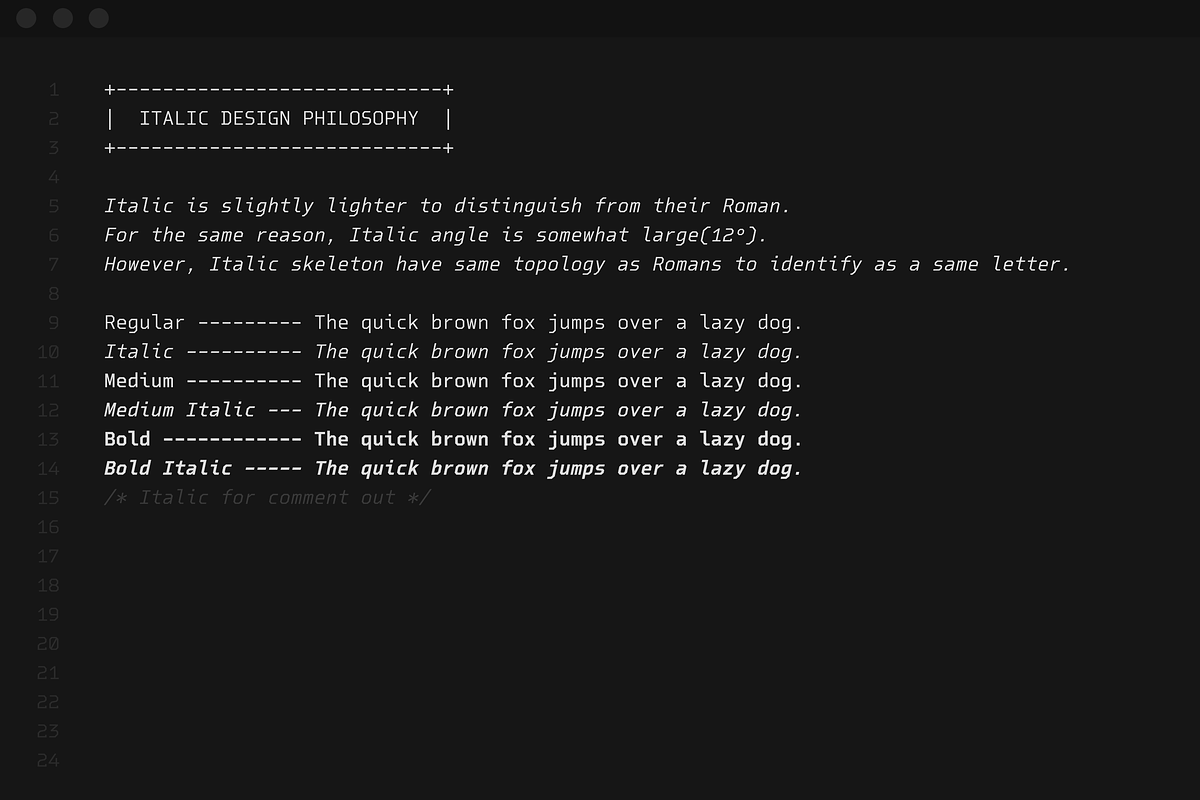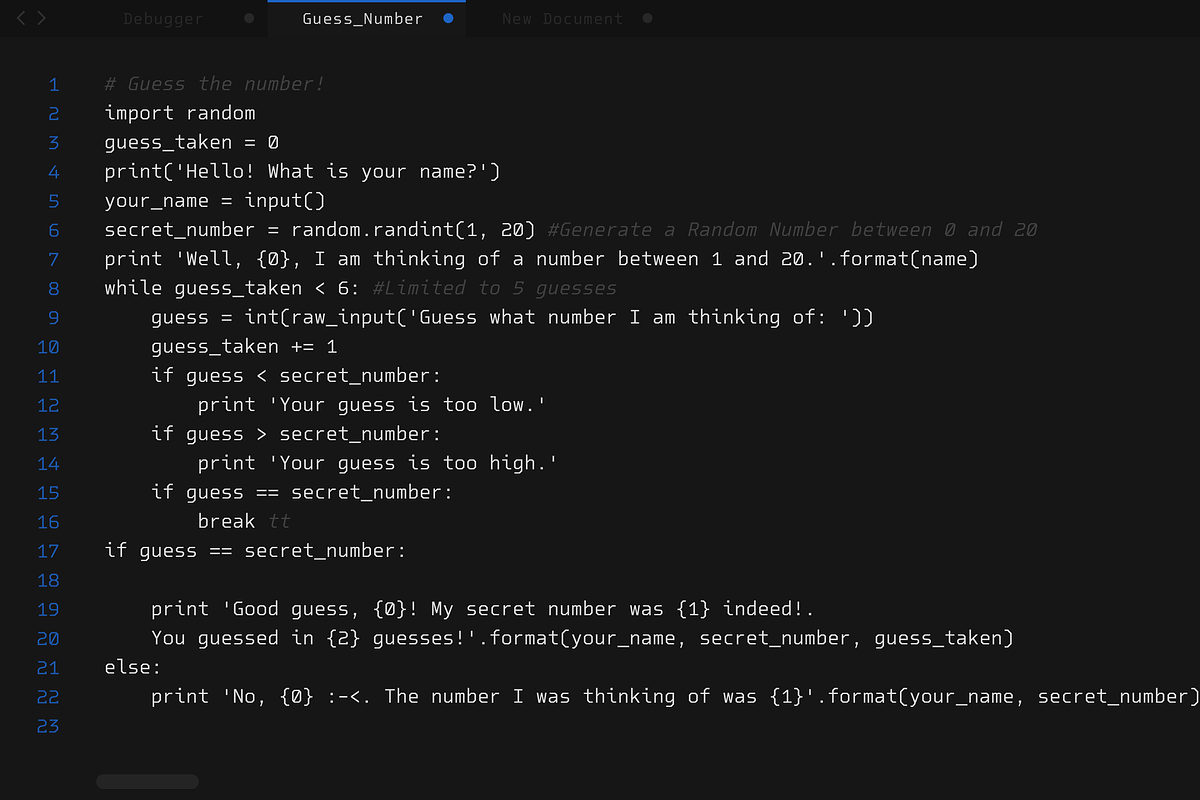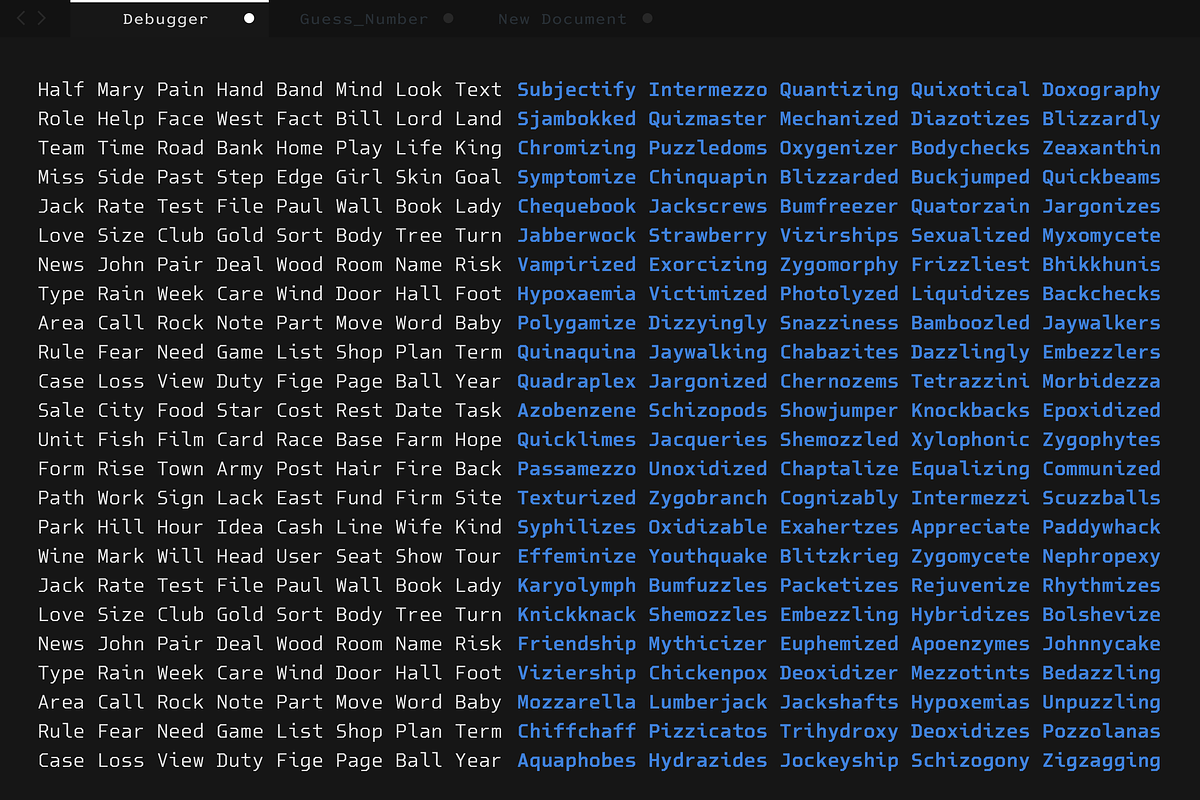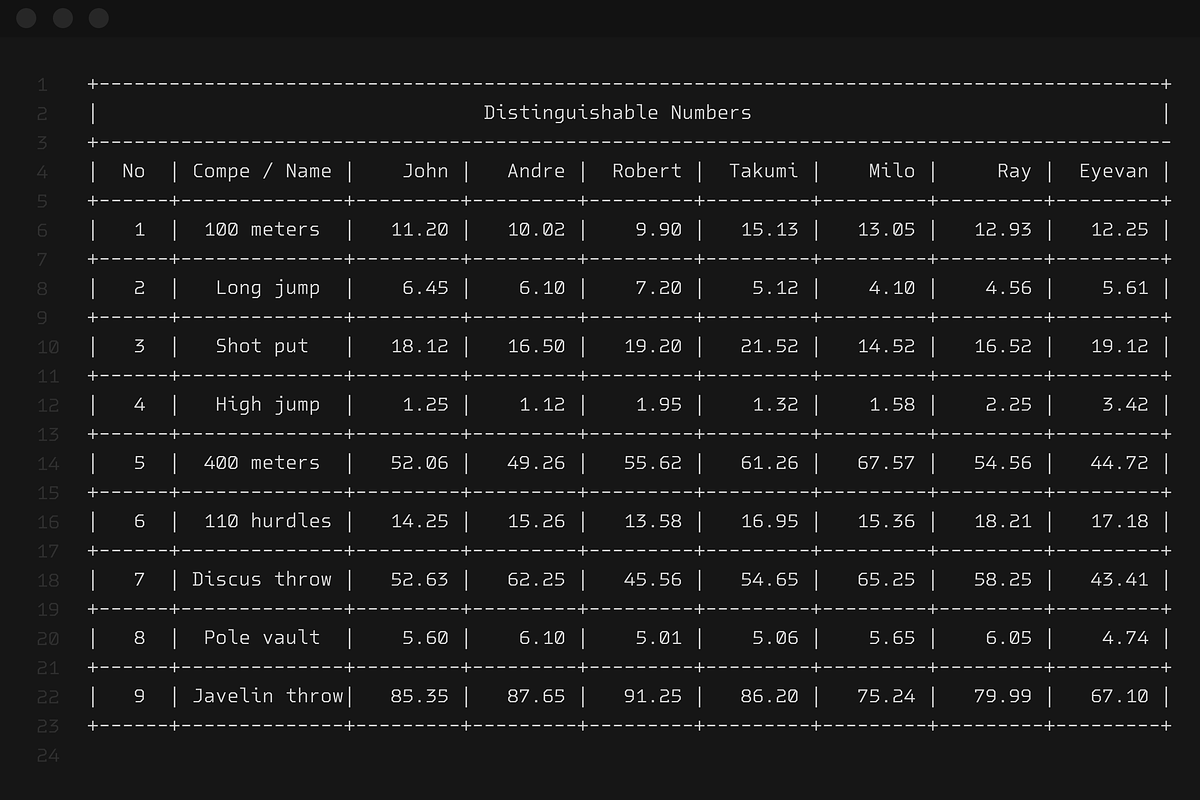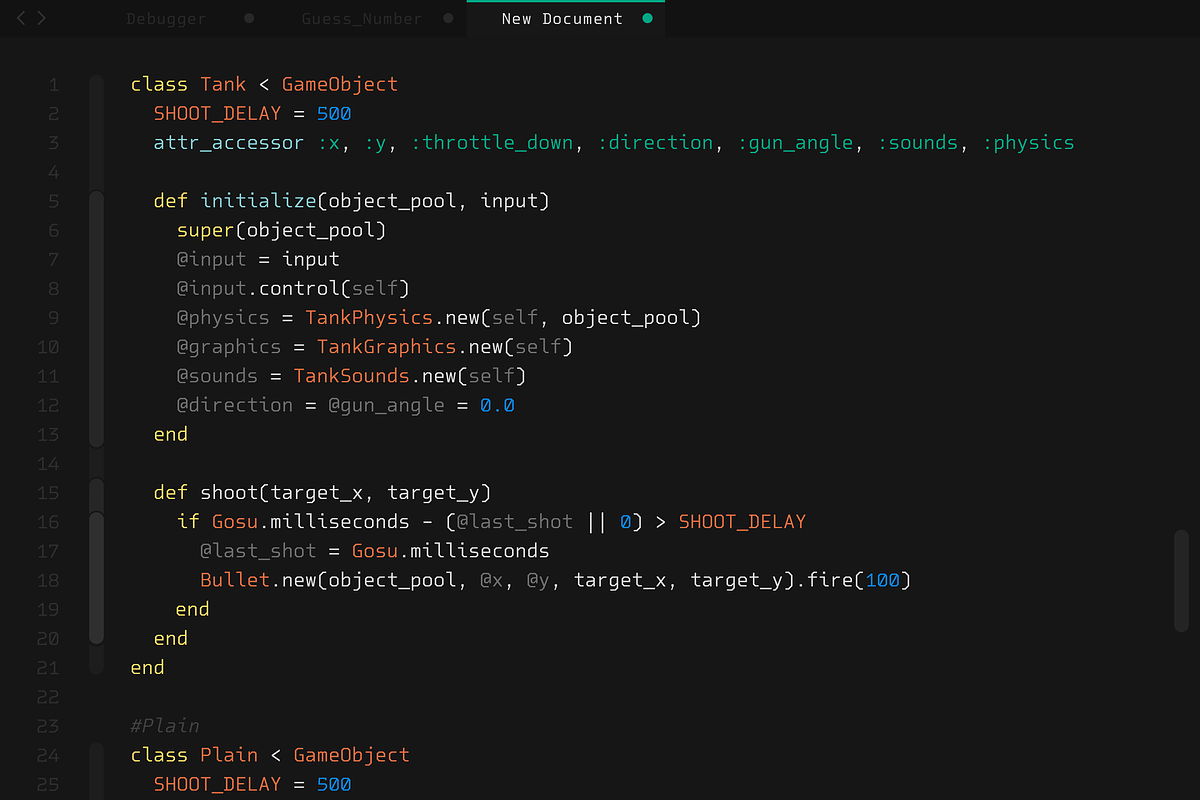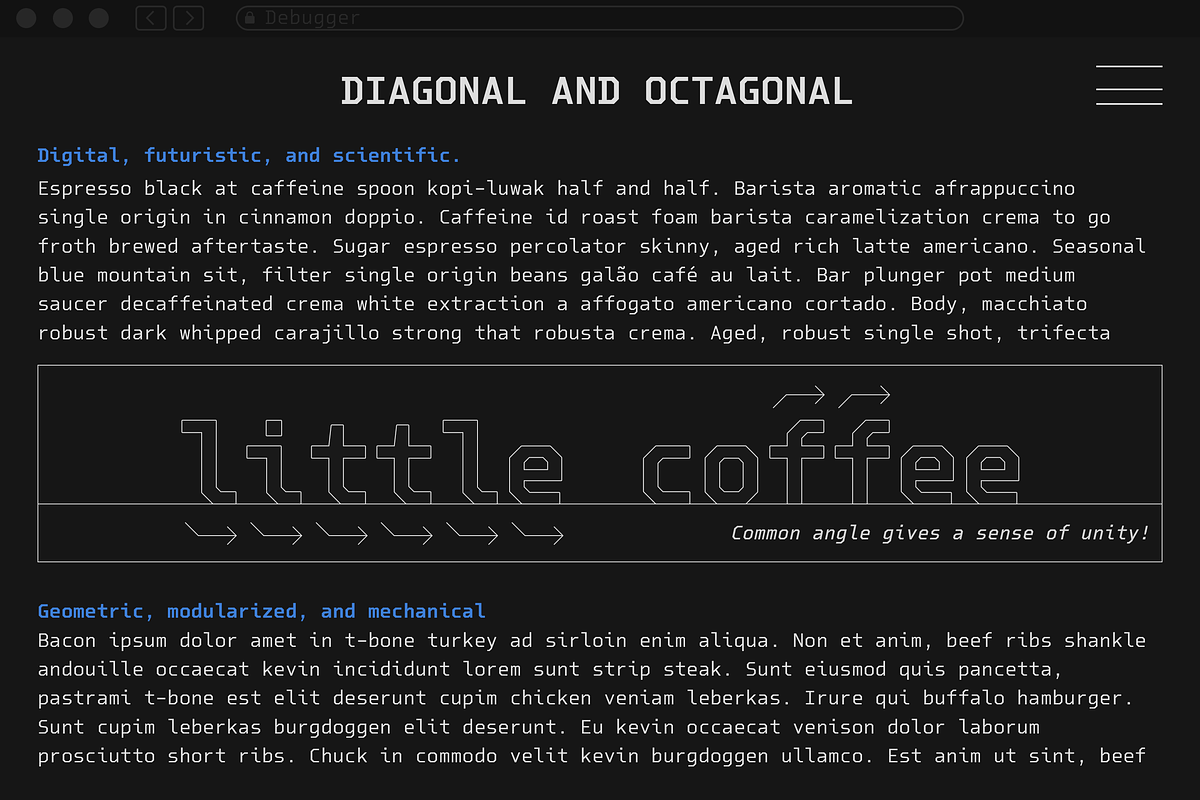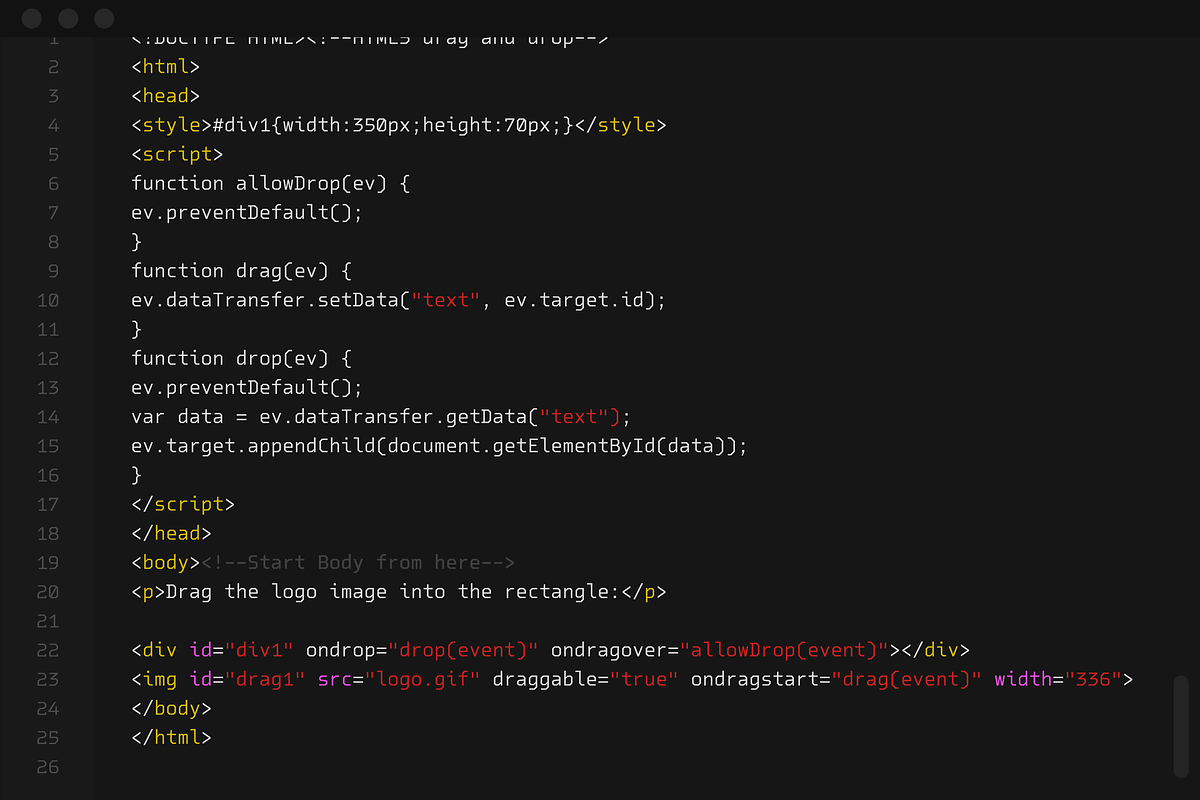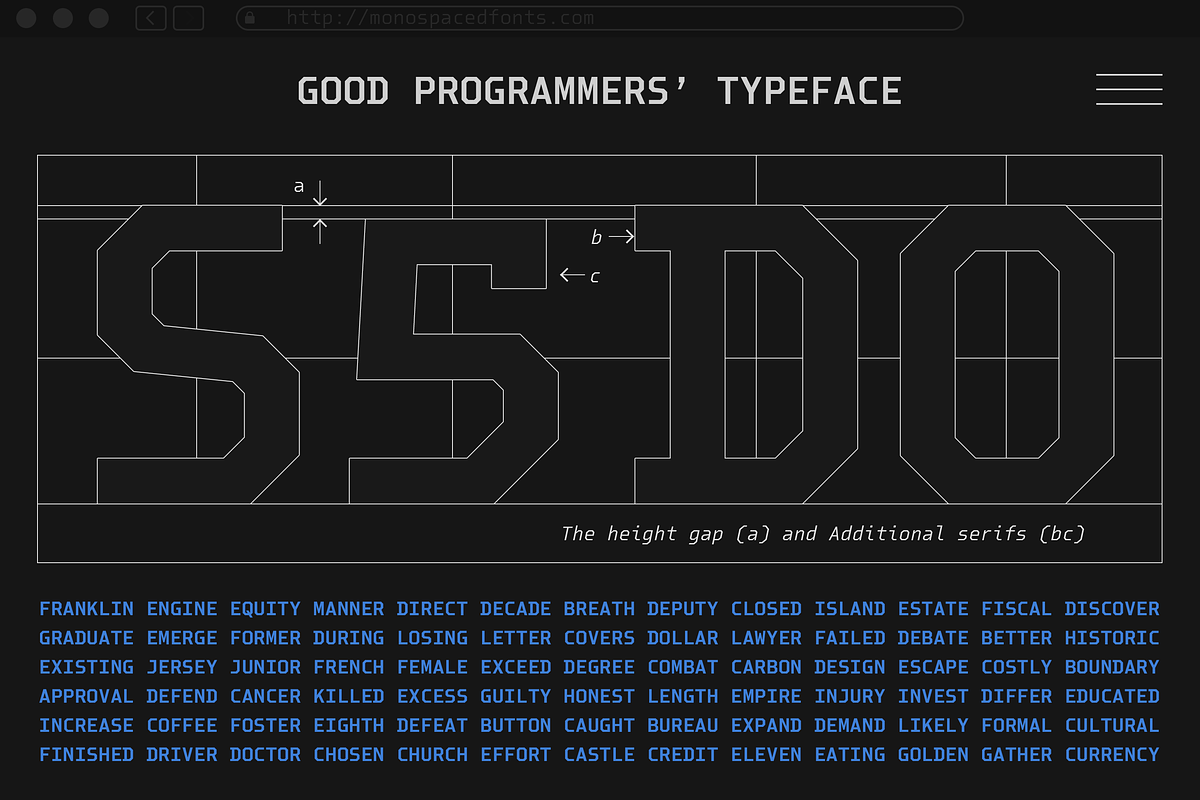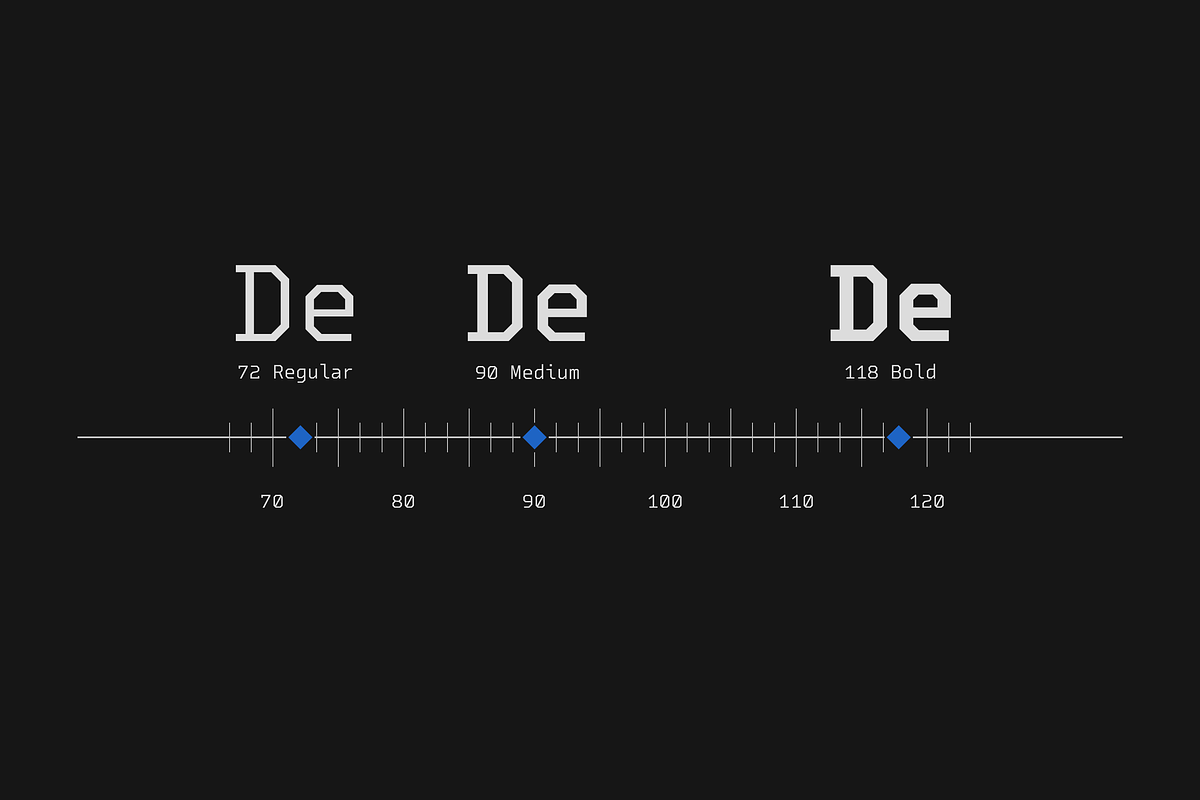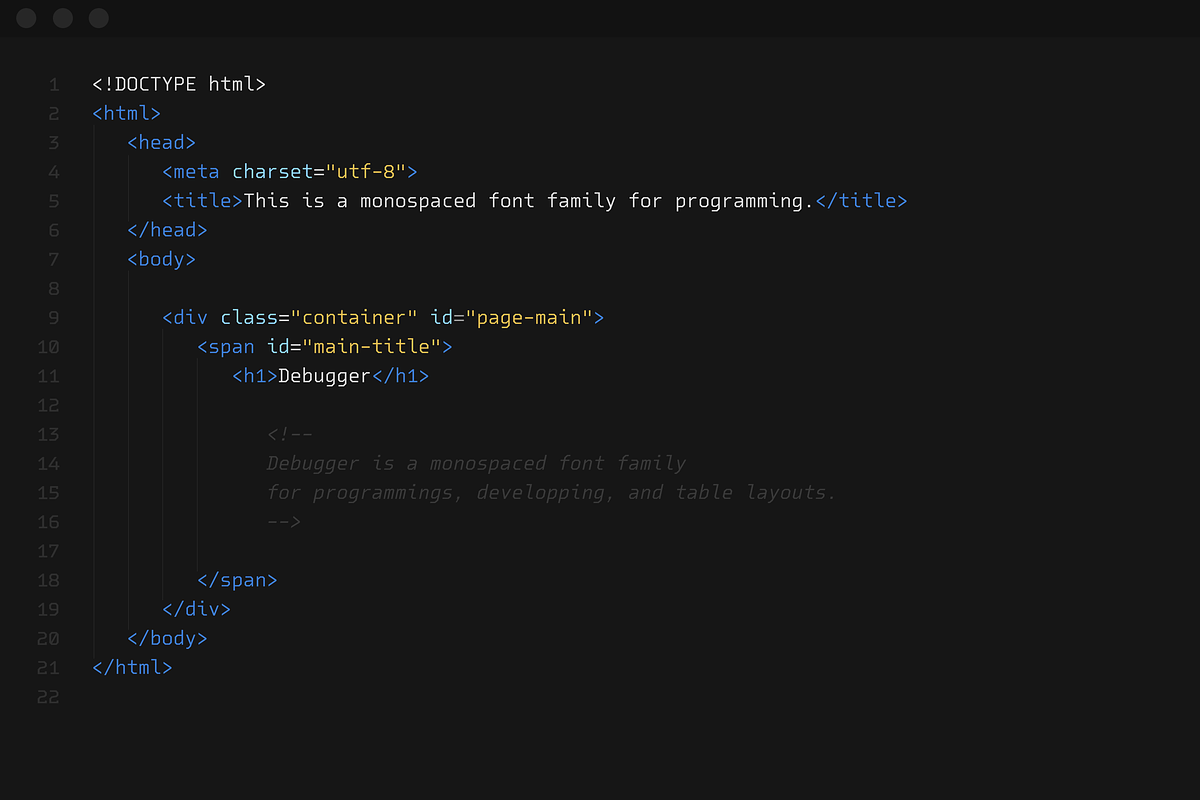
Debugger
Debugger is a futuristic, scientific, and digital-inspired monospaced font family, crafted for the next generation of development, programming, coding, and data presentation.
Designed with the core principles of great monospaced type in mind, Debugger excels in being:
- Easy to distinguish
- Easy to identify
- Easy to read
Special attention has been given to the clarity of commonly confused characters such as zero and uppercase O, one and uppercase I, and two and Z. Through thoughtful design choices and clever detailing, Debugger ensures clear character recognition in fast-paced coding environments.
The italic styles feature a noticeable slant angle and are slightly lighter than their Roman counterparts to enhance differentiation. These are not cursive italics, but rather mechanically slanted forms, maintaining readability and structure—because cursive styles are not ideal in programming contexts.
What sets Debugger apart visually is its octagonal and diagonal construction, which gives it a distinct sci-fi and digital feel—perfect for tech-forward, futuristic design projects. Consistent geometric elements across all characters create a strong sense of visual harmony and unity, making Debugger not only highly functional, but also stylish and cohesive.
Debugger supports almost all Latin-based languages, making it a versatile tool for global developers and designers. Step into the future of code with Debugger—a bold new experiment in monospaced typography.